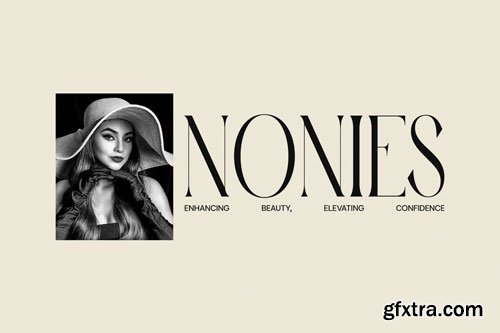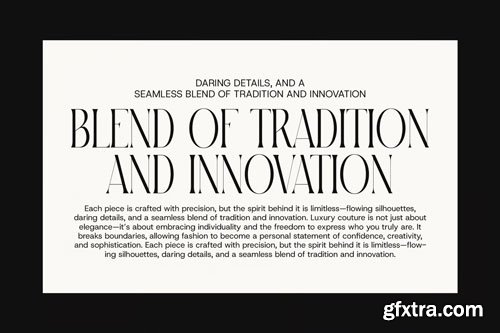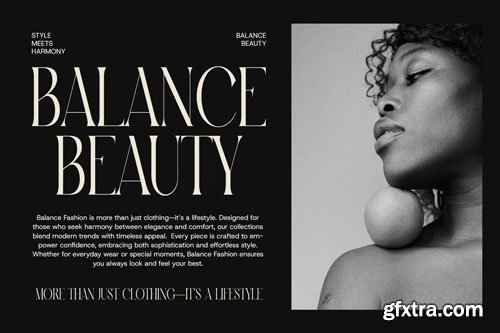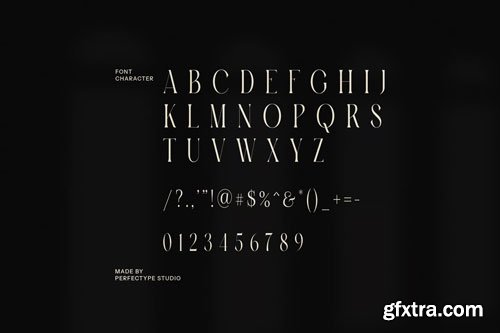
About Nostalgia Elegant Serif Font
Nostalgia Elegant Serif Font is a sophisticated and contemporary serif typeface that effortlessly blends classic design elements with a modern touch. Its graceful and stylish letterforms are enhanced by beautiful, unique ligatures and alternate characters, giving your typography a polished, distinctive look. This font is ideal for projects that demand an elegant, high-end aesthetic, offering versatility and charm across a variety of applications. Perfect for logos and branding, Nostalgia brings a sense of refinement to any design. Its smooth curves and precise serifs make it an exceptional choice for upscale brands, fashion, or luxury goods. Whether you're creating a website, magazine layout, or product packaging, this font's timeless elegance ensures your design will stand out with style and readability.